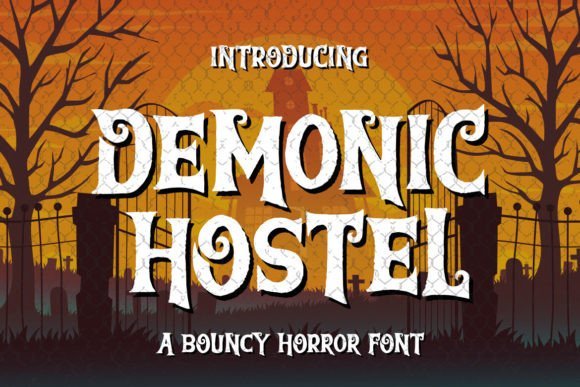
The Birth of a Dark Creation
Have you ever been brainstorming a design concept at 2 AM, and suddenly, a character bursts into your room, screaming ‘You need a demonic font!’ (You know who we’re talking about, creative souls!). It was one of those moments when you knew you needed something bold, something edgy, and something that would make your design stand out from the crowd. That’s when you stumbled upon the Demonic Hostel Font, a bouncy horror font that’s about to change the game for designers.
This high-quality font is designed for those who dare to be different, and its versatility makes it perfect for a wide range of designs, from flyers and quotes to posters, banners, packaging, and merchandise. With the Demonic Hostel Font, you’ll be able to create designs that are both spooky and stylish, making it a valuable addition to any designer’s toolkit.
Demonic Hostel Font Key Features
- Unique Characteristics: Demonic Hostel Font features a unique blend of gothic and horror-inspired elements, making it perfect for projects that require a dark and eerie atmosphere.
Demonic Hostel Font Review
I recently had the chance to work with the ‘Demonic Hostel Font’, and I must say it’s an interesting addition to any design project. ✨ The font’s bold and mysterious vibe makes it perfect for horror-themed projects, or anything that needs a touch of darkness. The unique letterforms and distressed textures add a layer of depth that’s hard to achieve with more generic fonts.
- ✨ Unique letterforms that add a touch of personality to your design.
- ✨ Distressed textures that give the font a worn, aged look.
- ✨ Perfect for horror-themed projects or anything that needs a dark, edgy vibe.
However, there are some limitations:
- ⚠️ Limited legibility in smaller font sizes, which can make it difficult to read.
- ⚠️ May not be suitable for projects that require a clean, minimalist look.
- ⚠️ Some users may find the font’s distressed texture overwhelming or distracting.
Overall, I think the ‘Demonic Hostel Font’ is a great choice for designers who want to add a touch of darkness to their projects. While it may have some limitations, its unique letterforms and distressed textures make it a standout choice for the right project.
Experiment with different font sizes and colors to create a striking visual effect. Use the font in conjunction with other bold and dramatic fonts to create a sense of contrast.
The Demonic Hostel Font is ideal for horror-themed designs, such as posters, flyers, and book covers. It’s also great for creating a sense of drama and tension in presentations and reports.